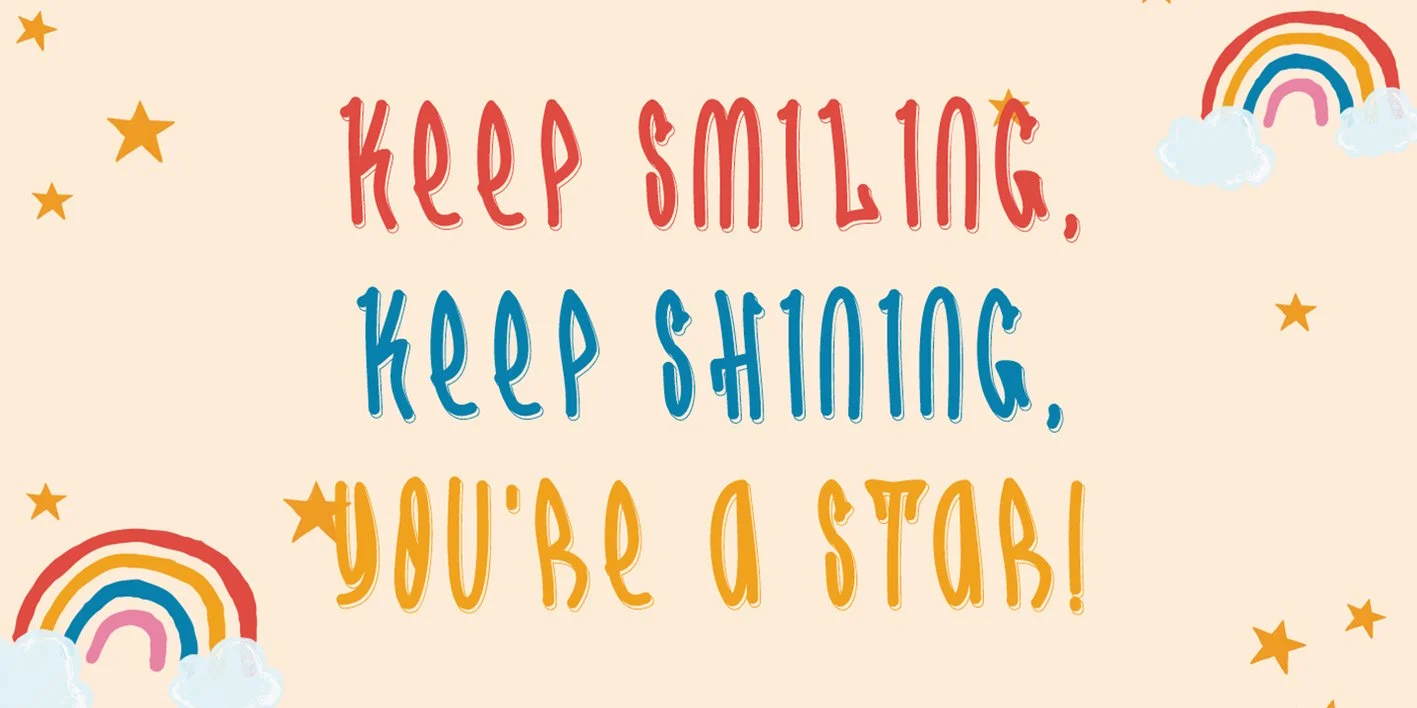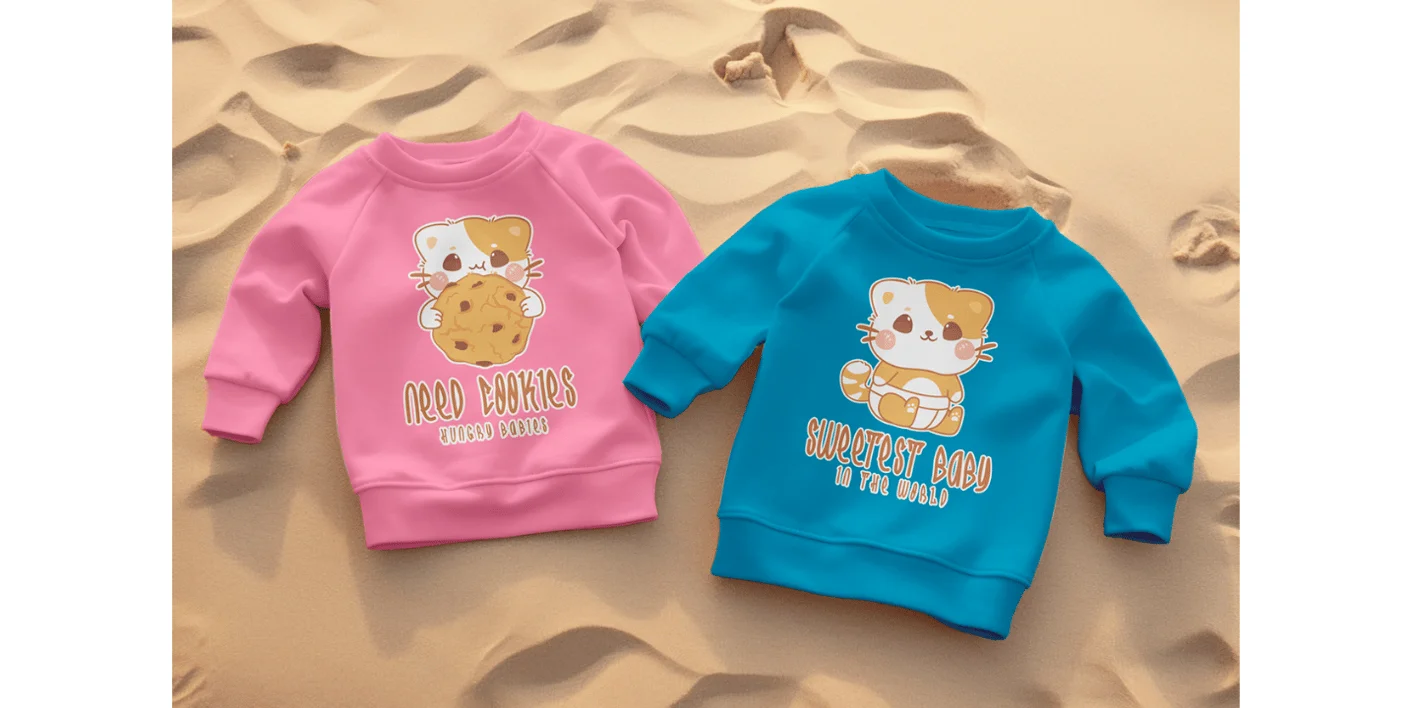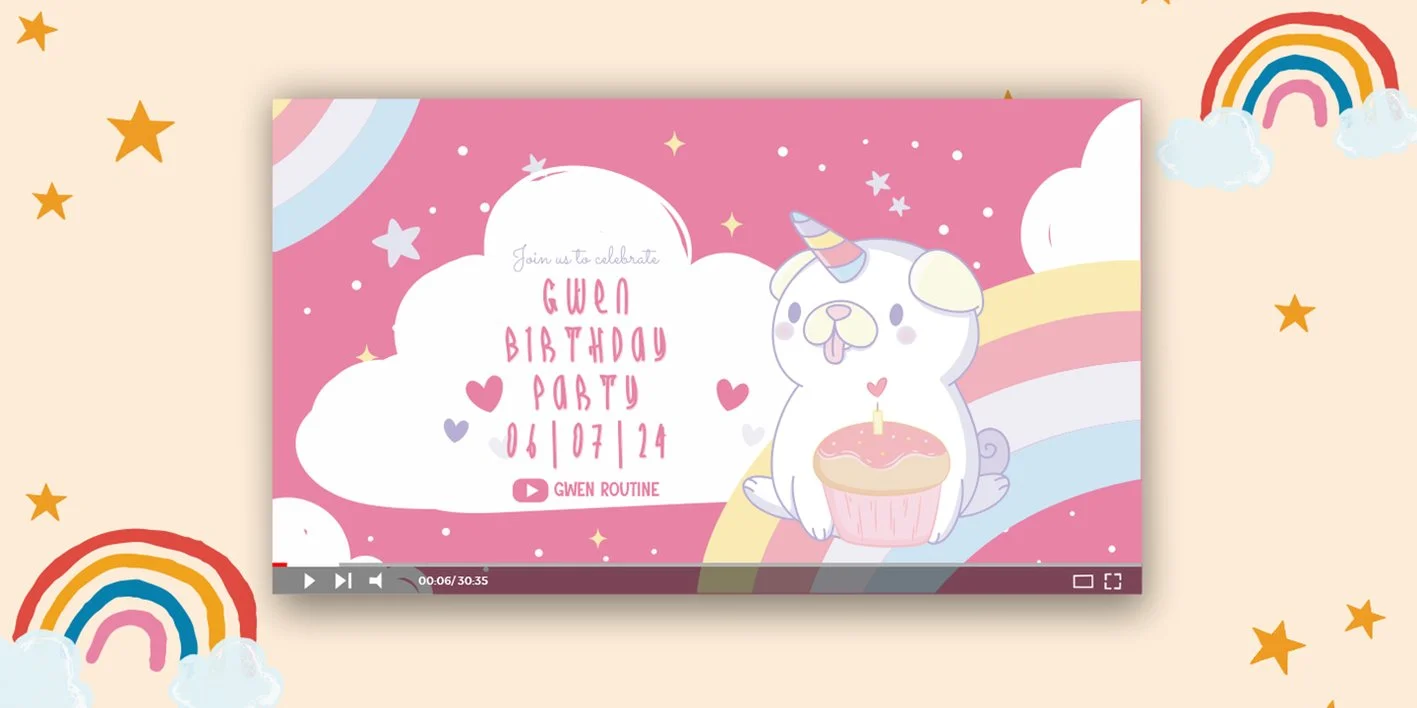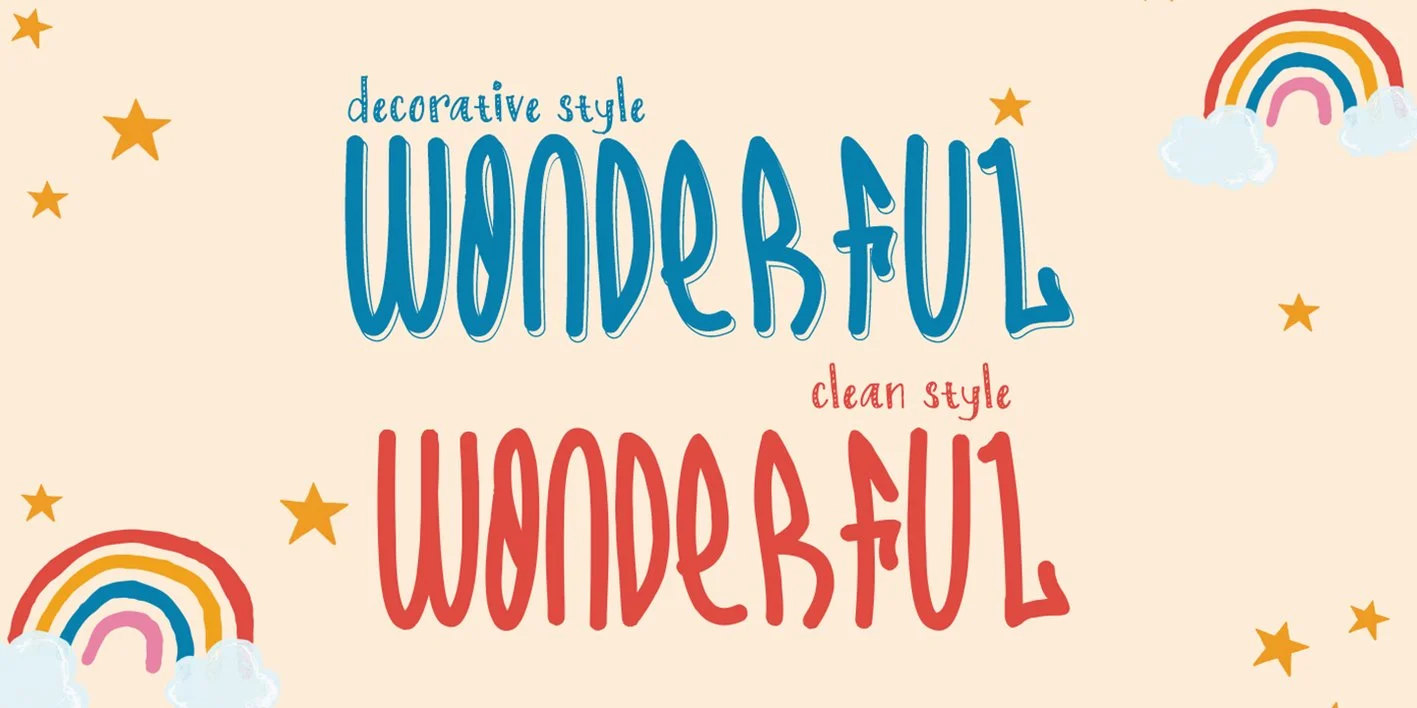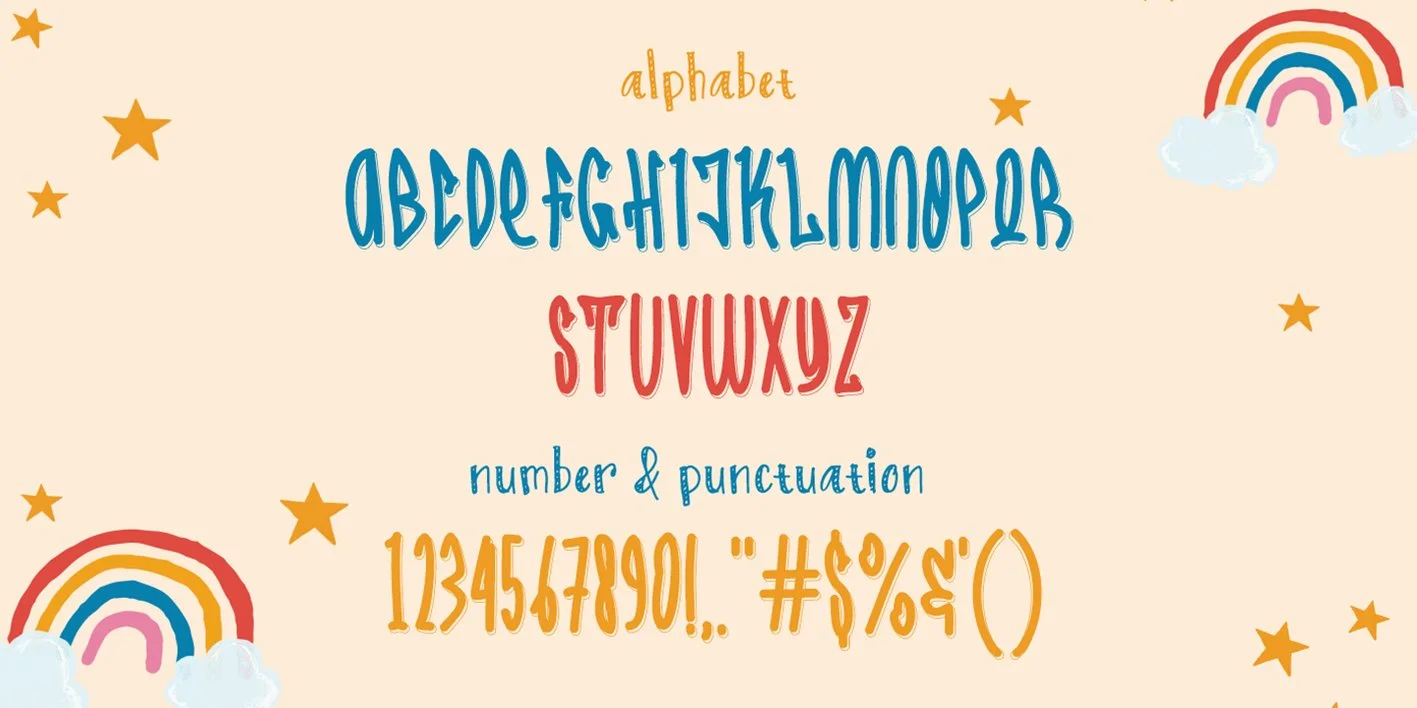
Dazzling Monkey Font
A good typeface communicates tone before a single word is read. Dazzling Monkey achieves this through the kind of restraint that lets content lead. The typeface brings a versatile sensibility to a broad range of creative disciplines, with strong typographic hierarchy support that holds up whether the work is print-first or screen-first.
In practice, Dazzling Monkey proves particularly effective for annual reports, editorial layouts, brand identity systems, social media graphics, environmental graphics. Designers reaching for it find that the type decisions feel resolved rather than laboured — a useful quality when client timelines are tight.
The range of applications extends to product labels, packaging design, poster creation, web design. That breadth is deliberate: the proportions and spacing were stress-tested across a wide range of mock briefs before the typeface was finalised.
Spacing and kerning pairs have been individually reviewed for the most common letter combinations in English and major European languages. The result is even type colour across continuous text, with no awkward gaps or collisions between adjacent characters.
Dazzling Monkey sits comfortably alongside both classic and contemporary typefaces in multi-font hierarchies. It takes direction rather than competing for attention — a quality that experienced designers know is harder to find than it appears.
Graphic designers working on identity systems find Dazzling Monkey a reliable choice for projects that demand both personality and restraint. The design avoids the self-conscious quirkiness that dates quickly, settling instead for considered distinctiveness that holds up over time.